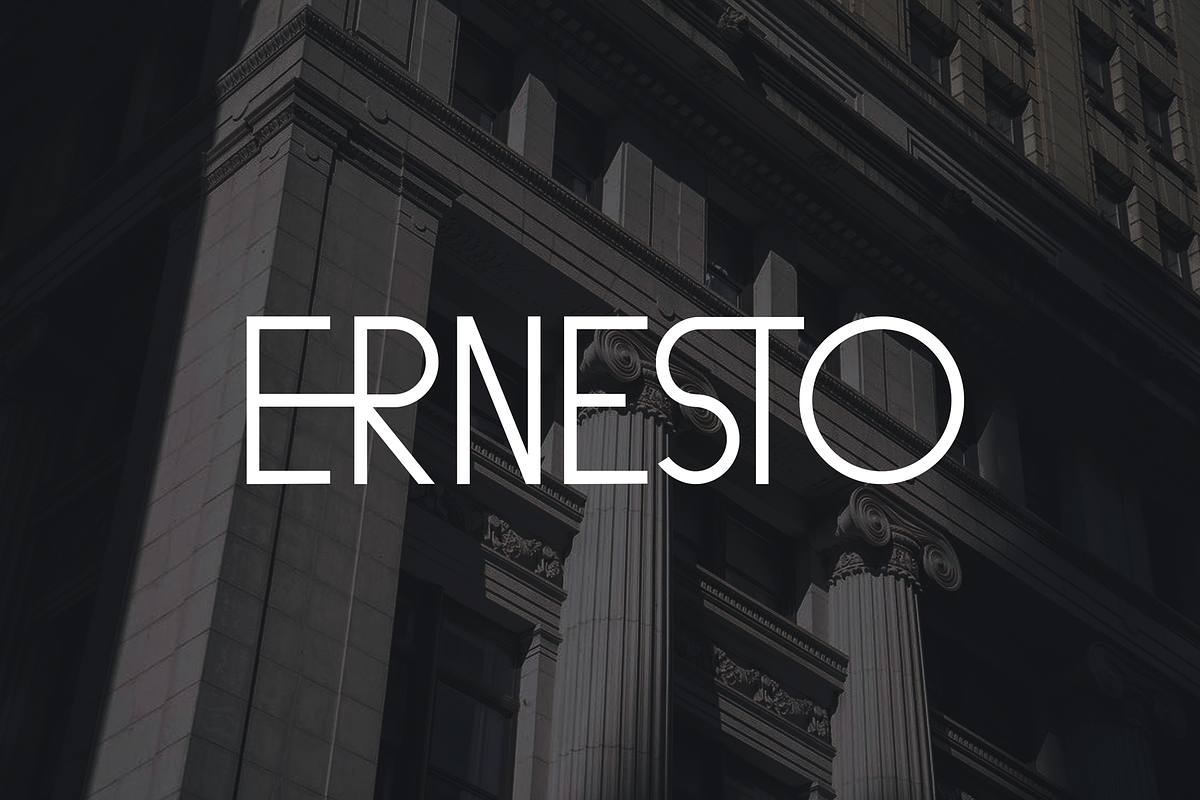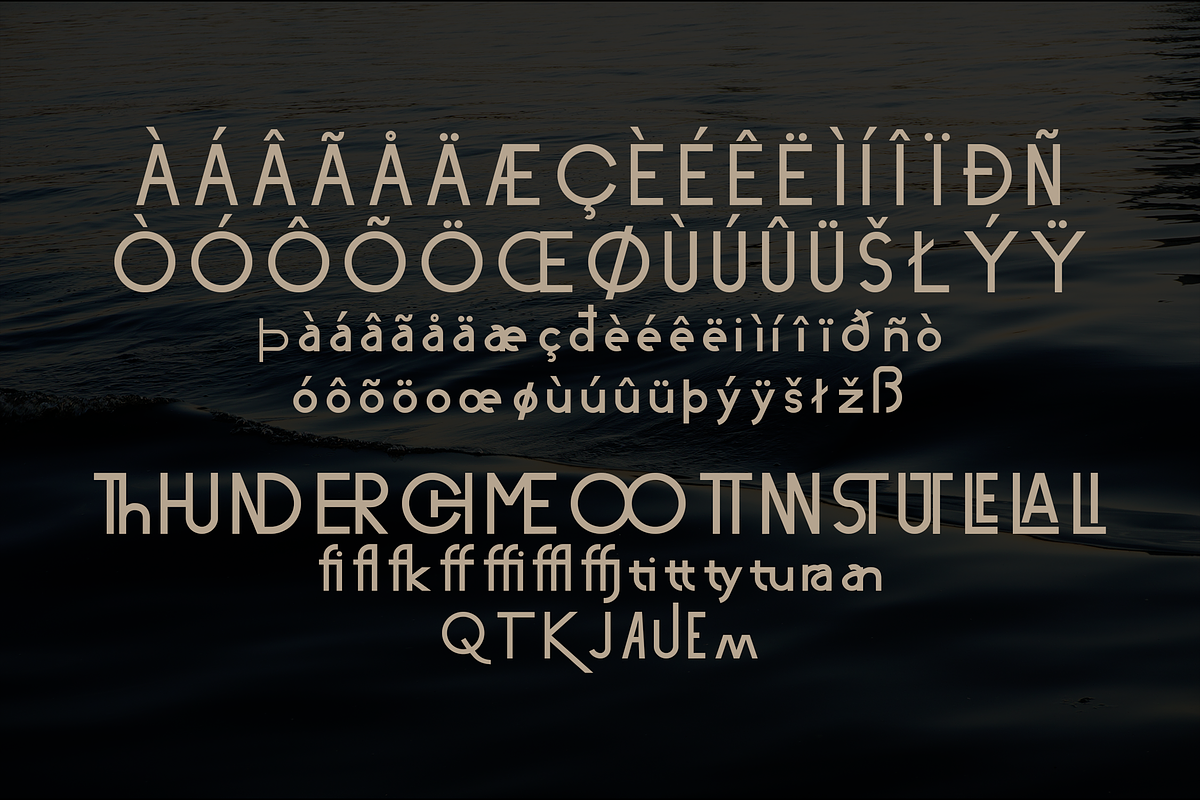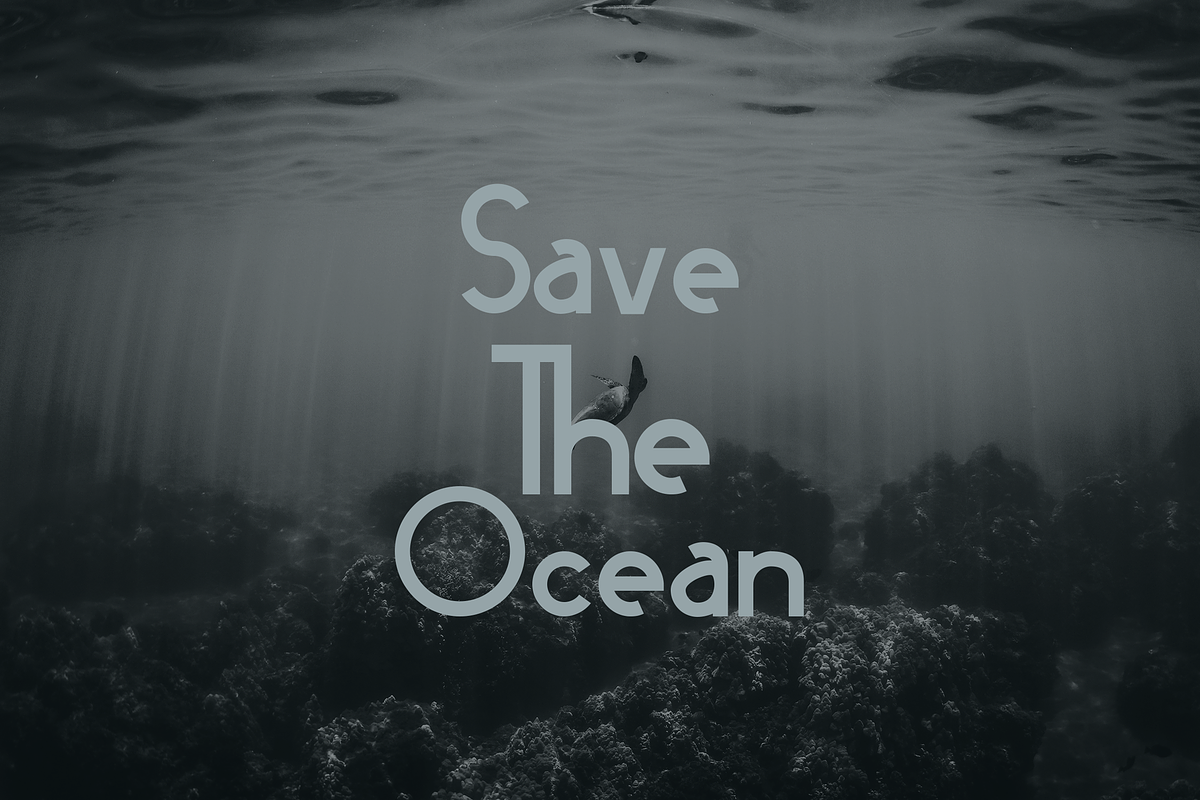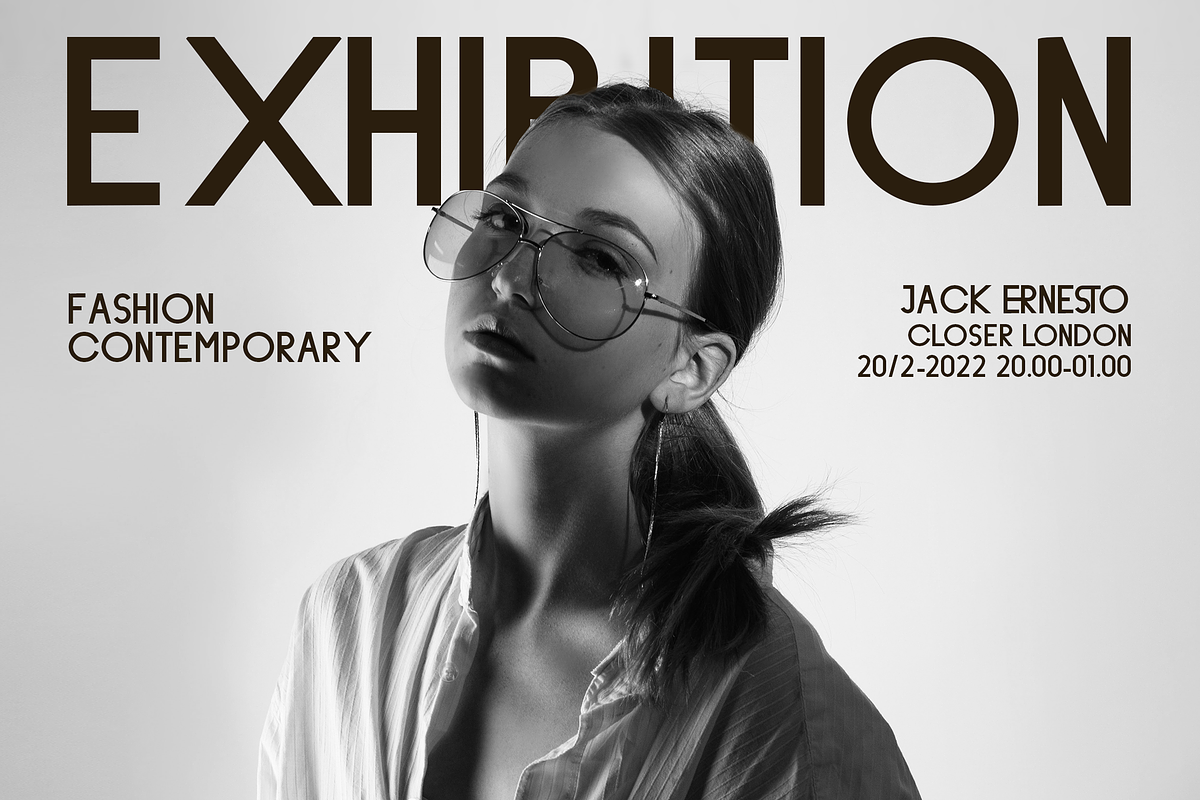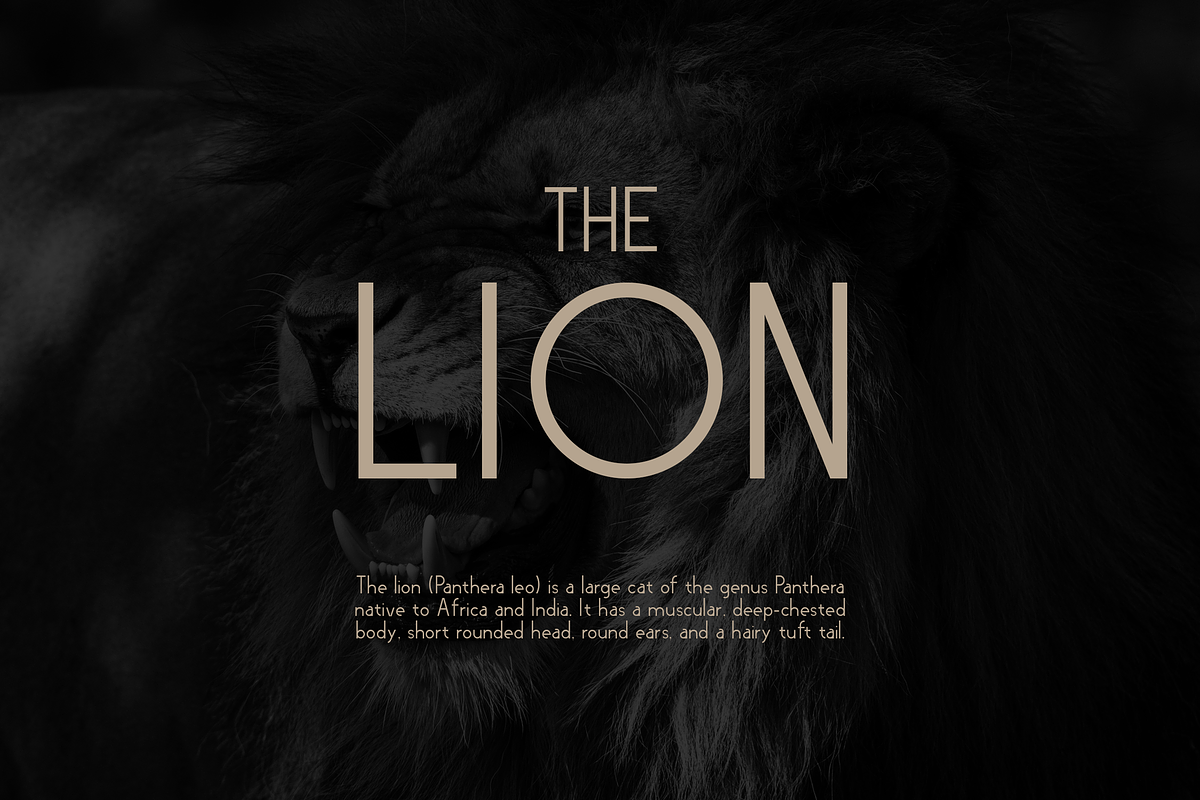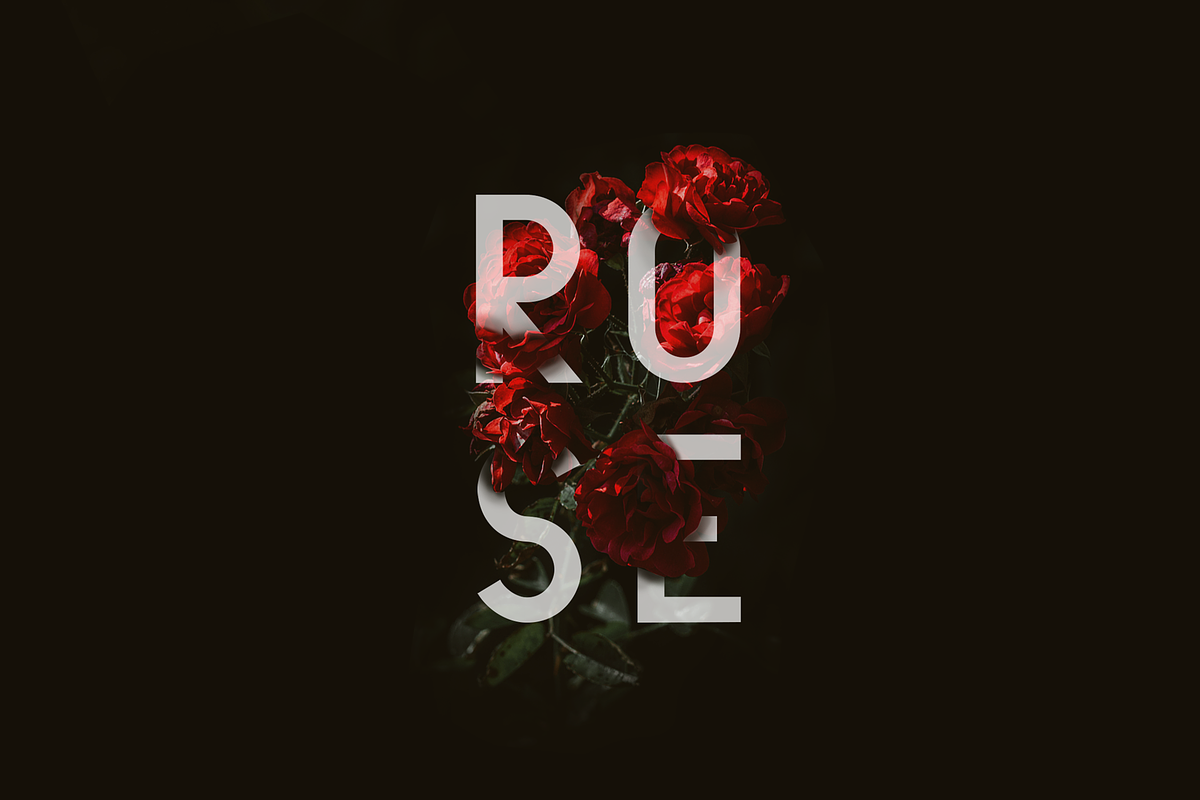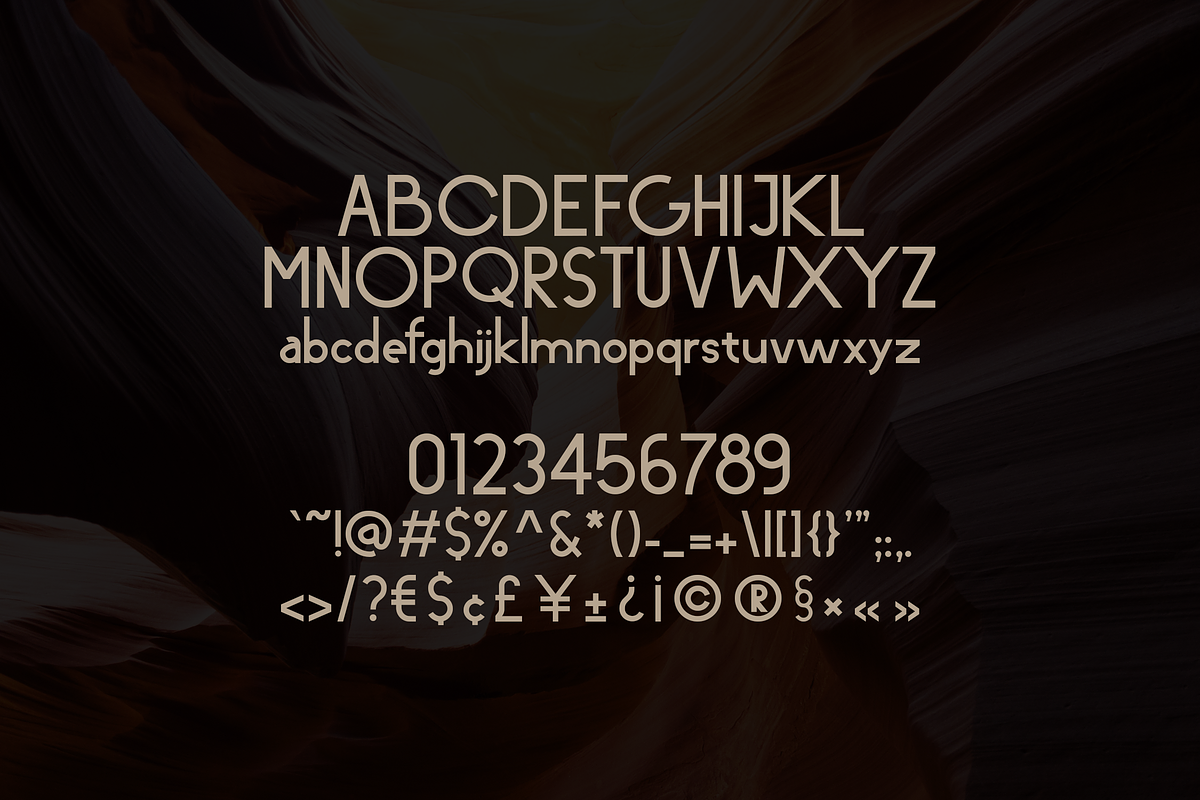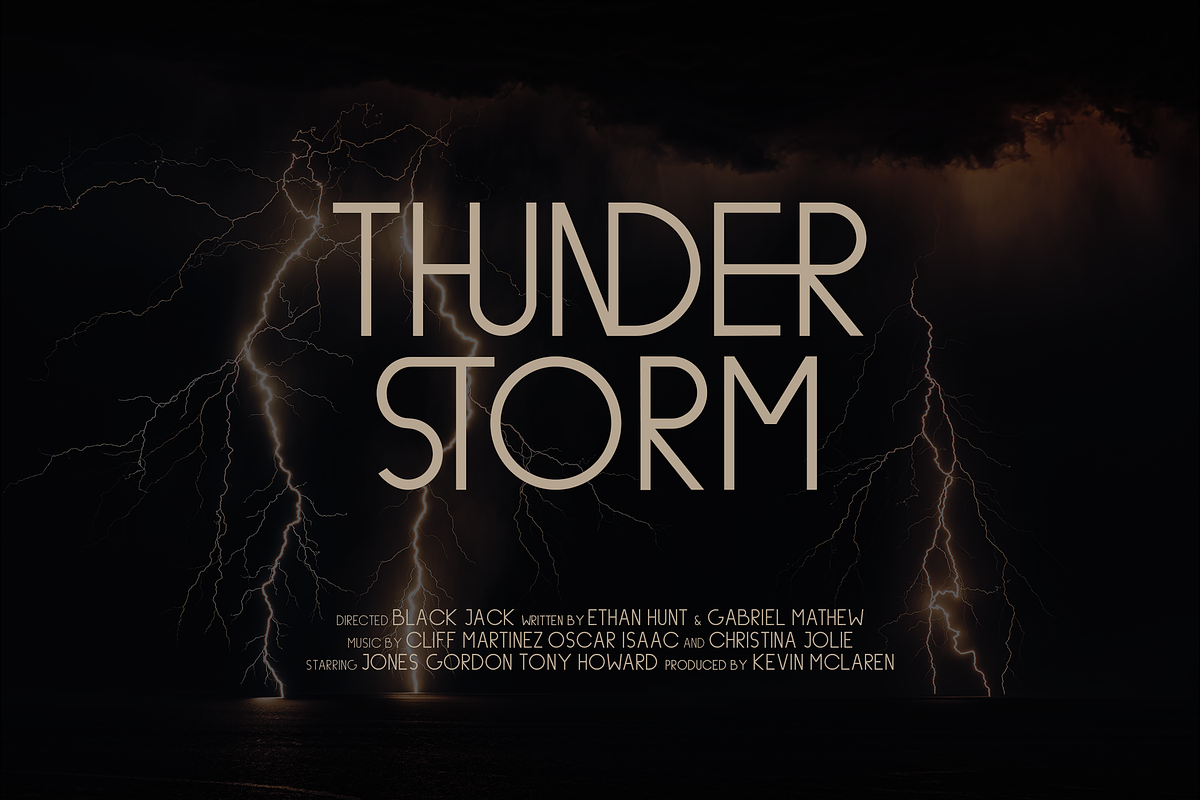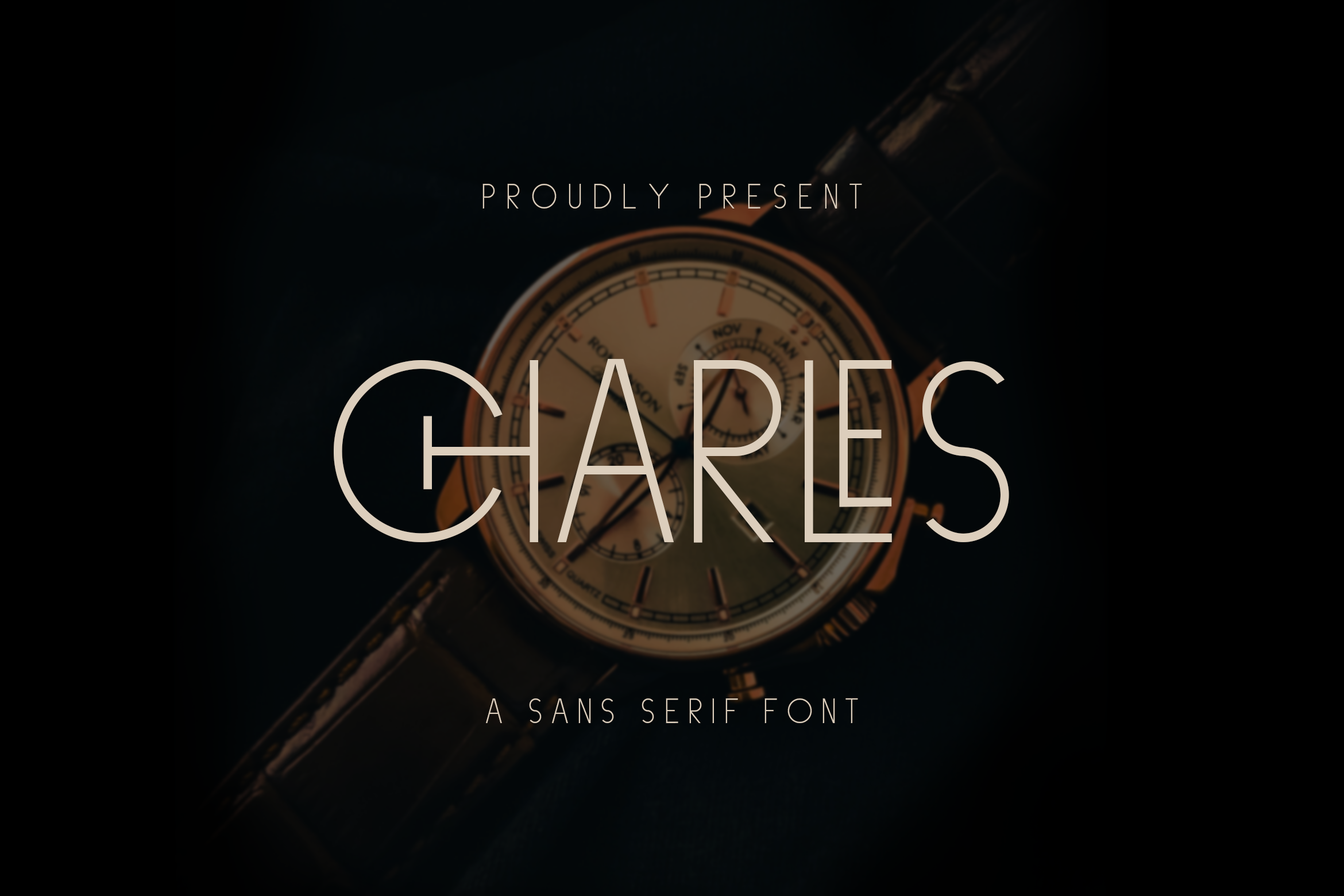
Charles - An Elegant Sans Serif Font
Introducing Charles, is a Elegant Sans Serif Font has many purpose and suitable for corporate, luxury product, glamor activity, fashion event, deluxe items, classic modern, logotype, advertising and much more
- Available Ligatures and Alternates
- Available Multi Language